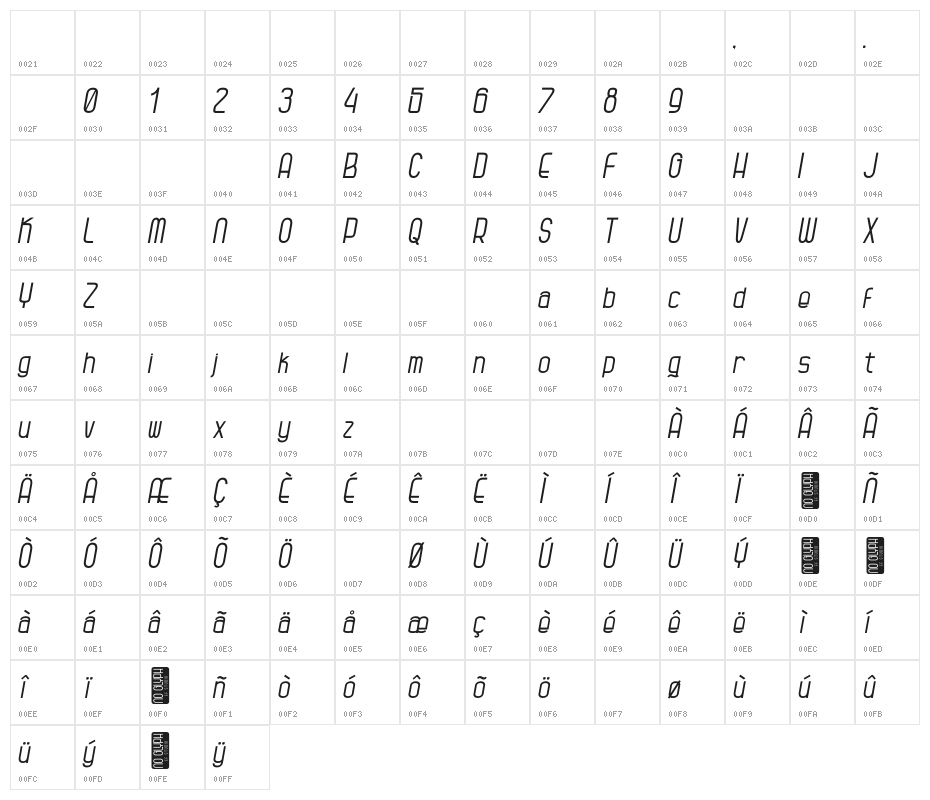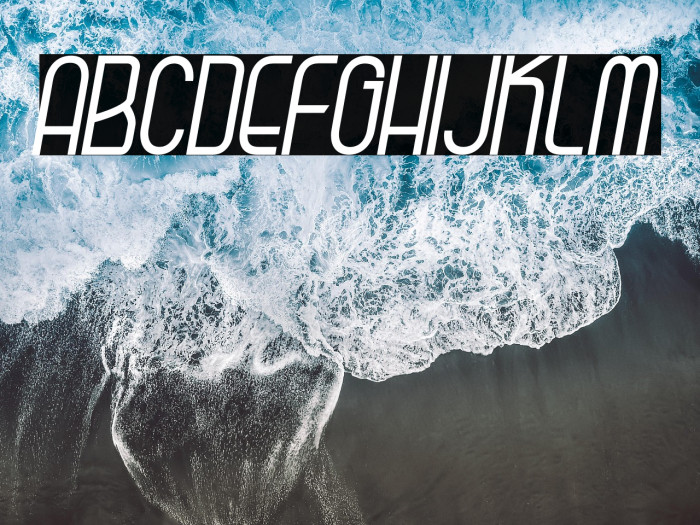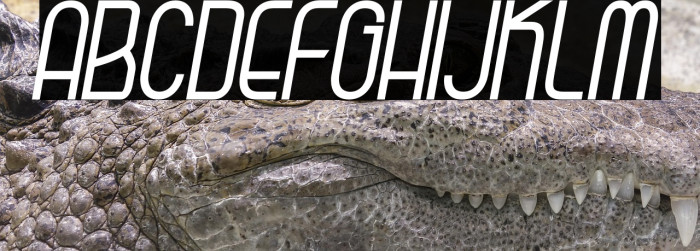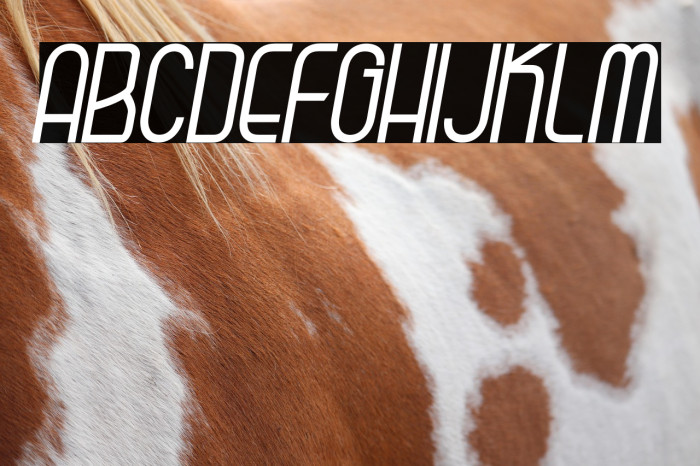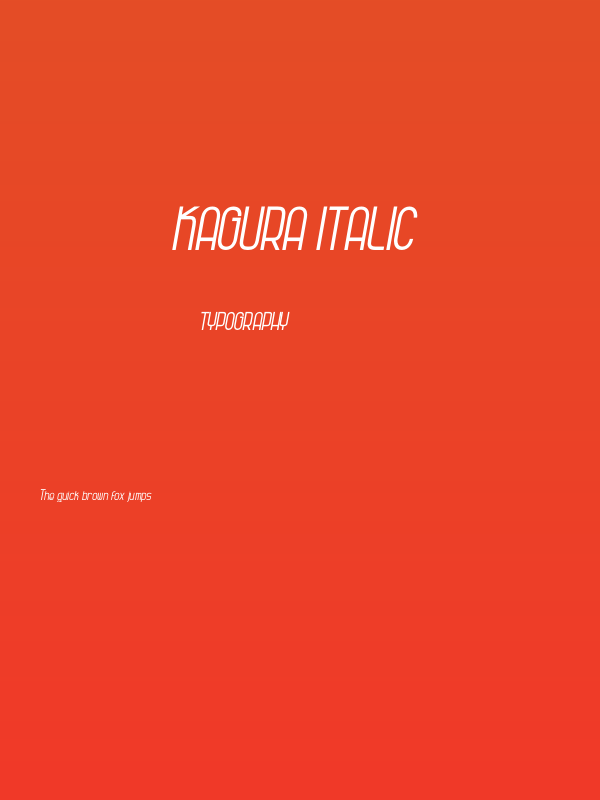
Kagura Italic Font
Kagura Italic Description
This font features a sleek, modern design with a distinct italic slant, giving it a dynamic and forward-moving appearance. The characters are elongated and slightly condensed, providing a streamlined look. The strokes are consistent in weight, offering a medium contrast that enhances readability while maintaining a stylish flair. The font's geometric structure is evident in its clean lines and smooth curves, making it suitable for contemporary design projects. Its unique style is both eye-catching and versatile, perfect for making a bold statement.